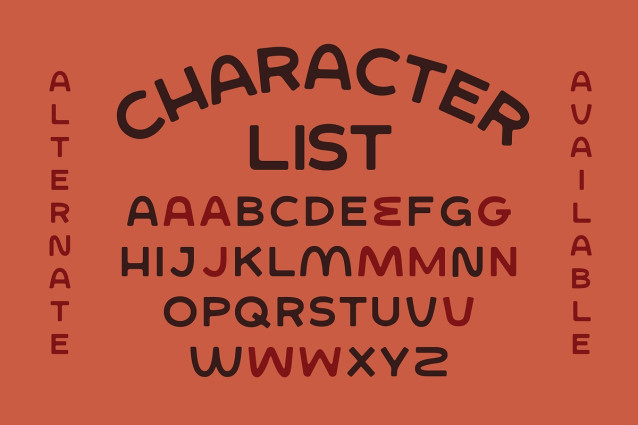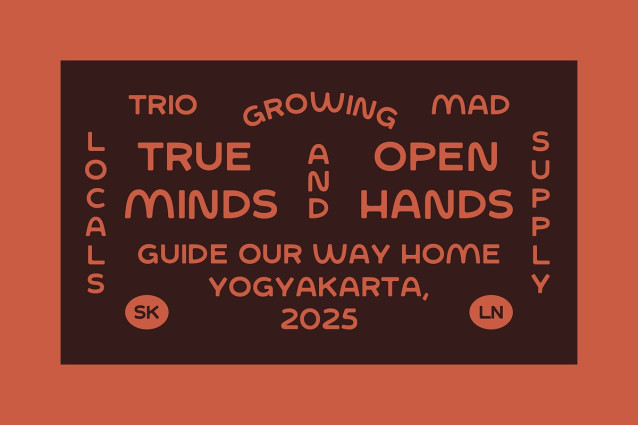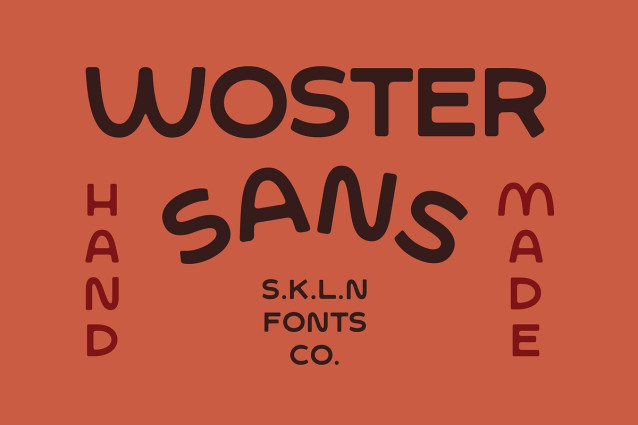
SFC Woster Sans Font is a handmade display sans serif crafted with warm organic curves, playful character, and a friendly handcrafted feel. Its rounded shapes and smooth, natural flow bring a relaxed and expressive personality to any design, making it perfect for branding, packaging, posters, logos, children’s projects, and modern creative layouts. Despite its quirky charm, Woster Sans remains clean and highly readable, delivering a balance of artistic style and practical usability.